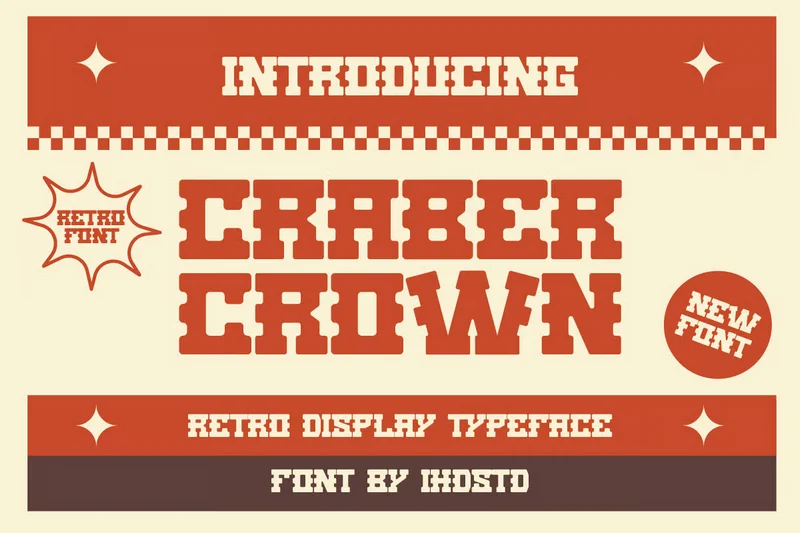
Craber Crown Retro Display Typeface
Craber Crown Retro Display Typeface is a bold and stylish font inspired by vintage aesthetics. Its unique crown-like details and retro vibes make it perfect for logos, posters, headlines, and any design that seeks a classic yet striking look.